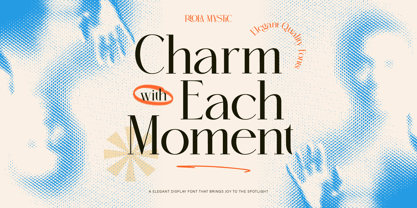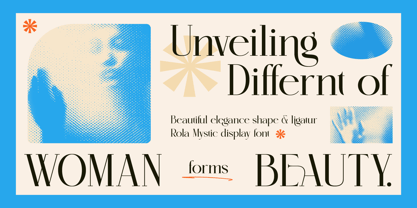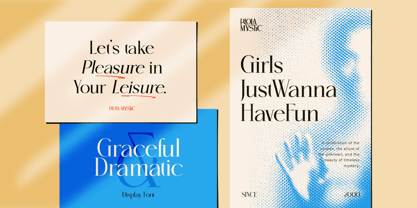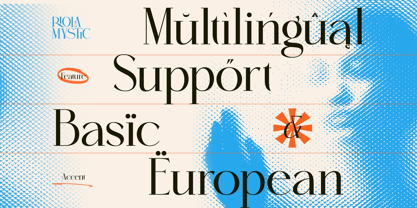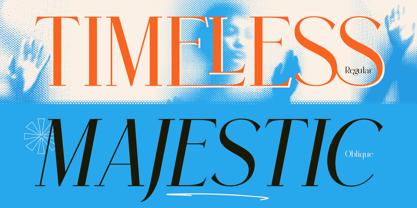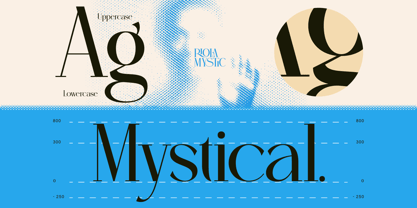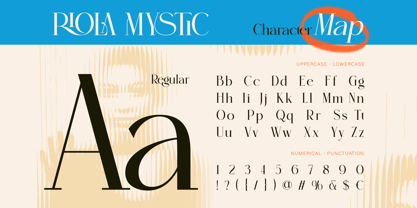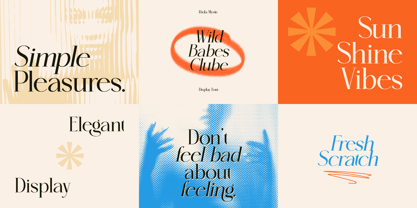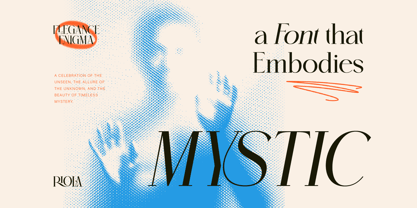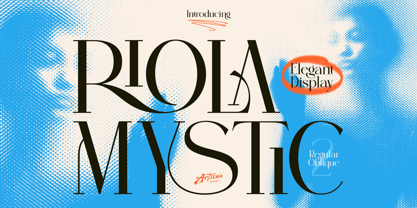
Riola Mystic
The Riola Mystic Font Family was designed by Meidy Meichico and published by Artisan Themes. Riola Mystic contains 2 styles and family package options. More about this family
Riola Mystic is more than just a typeface – it’s a statement of elegance and creativity. Designed with graceful curves, stylish ligatures, and a touch of modern sophistication, this font is perfect for anyone who wants their words to stand out. Whether you’re working on branding, editorial layouts, invitations, or social media posts, Riola Mystic adds a timeless charm to every project. With Regular and Oblique styles, you get the flexibility to create designs that feel both classic and contemporary. From fashion lookbooks to lifestyle blogs, from wedding stationery to bold headlines – Riola Mystic brings beauty, confidence, and personality to your design journey. Bring your ideas to life with a font that speaks elegance in every letter.